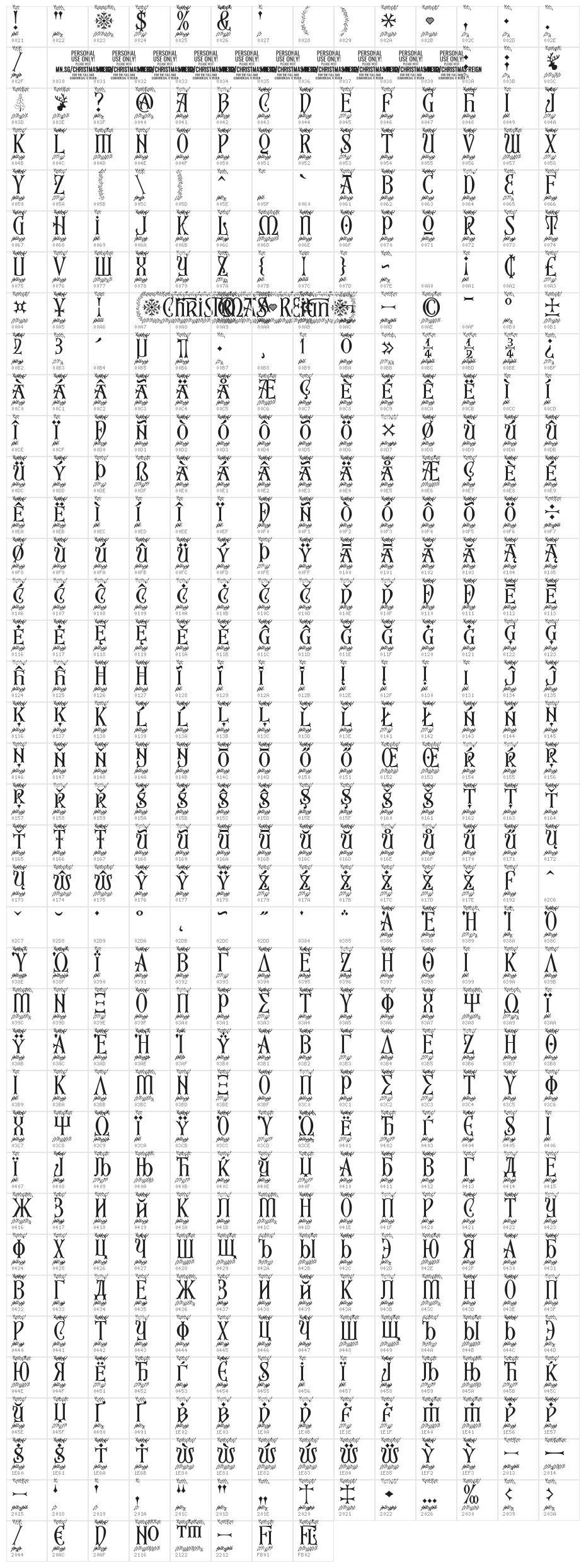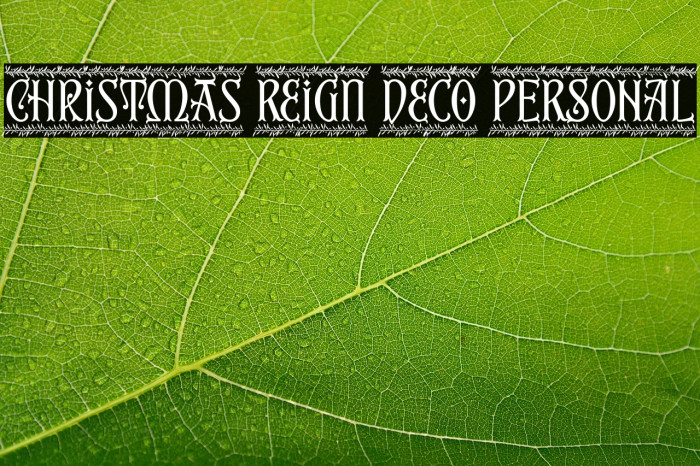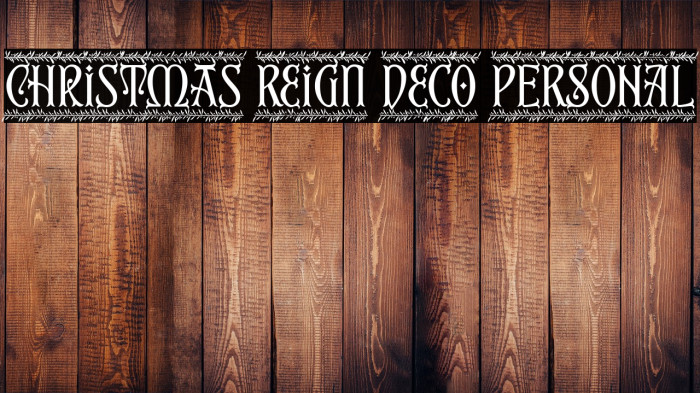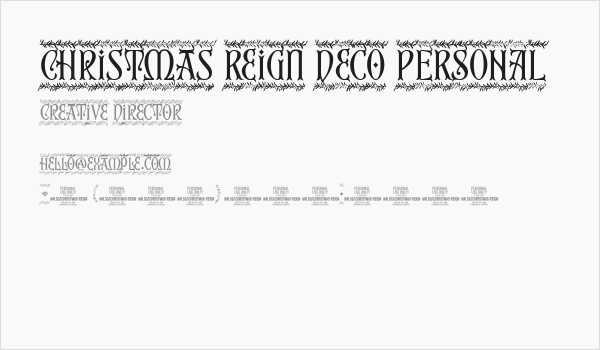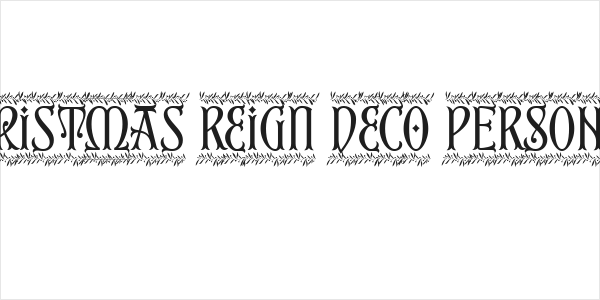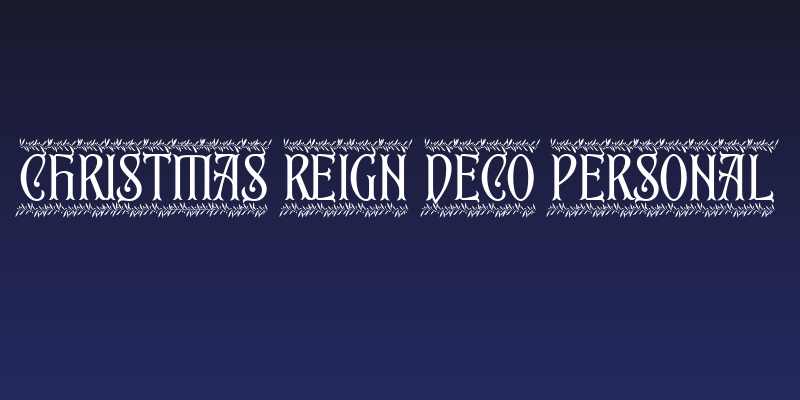
Christmas Reign Deco PERSONAL Font
Christmas Reign Deco PERSONAL Description
This font features an intricate and decorative style, reminiscent of festive holiday themes. The uppercase letters are adorned with elaborate flourishes and sharp serifs, giving them a regal and ornate appearance. The lowercase letters maintain a similar decorative flair, with unique curves and embellishments that add to the overall festive feel. The numbers and special characters are equally ornate, incorporating elements like stars and snowflakes that enhance the holiday theme. The font's design is highly detailed, making it suitable for projects that require a touch of elegance and festivity.